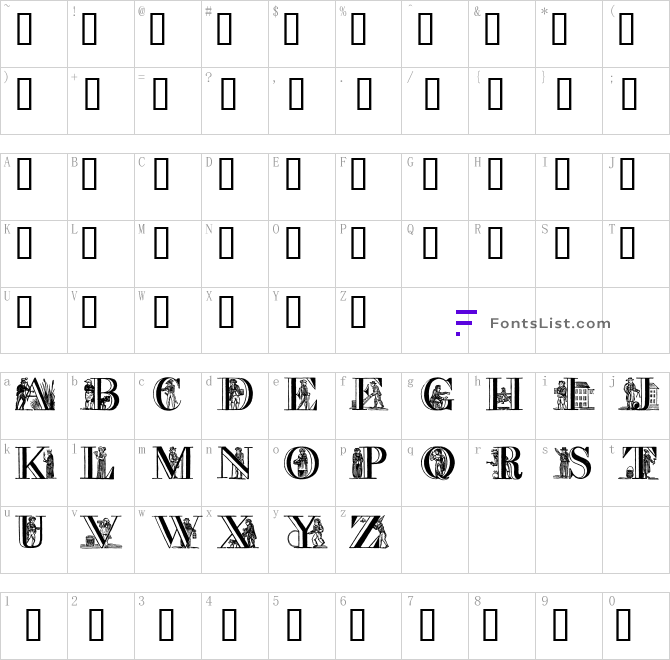
- Font Name:a picture alphabet
a-picture-alphabet.ttf is a very beautiful artistic font, a-picture-alphabet.ttf is widely used in the design and printing of various books and pictures,a-picture-alphabet.ttf has a strong visual impact,a-picture-alphabet.ttf is a commonly used font in newspapers, magazines and books, and is used in posters, e-commerce Poster design, store design, logo design, font design and other fields.a-picture-alphabet.